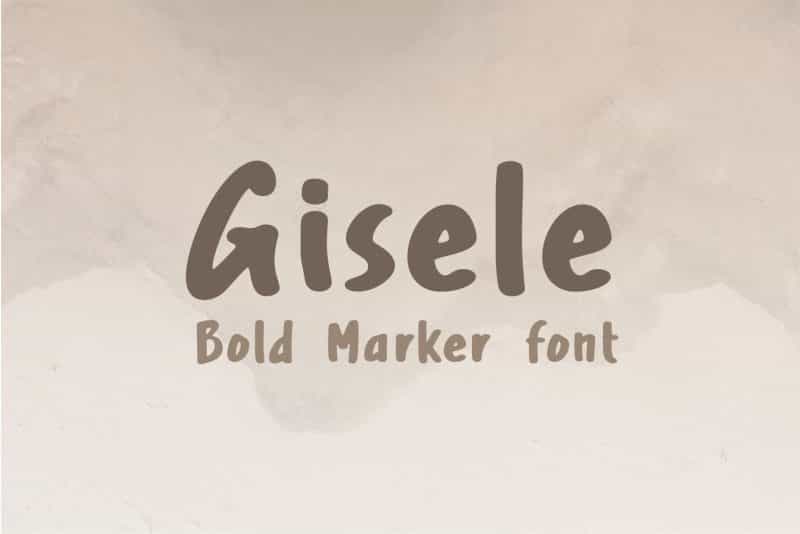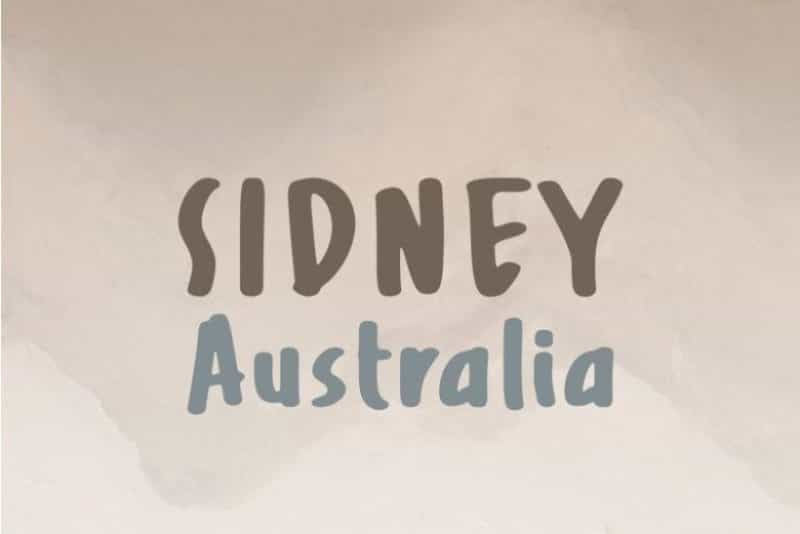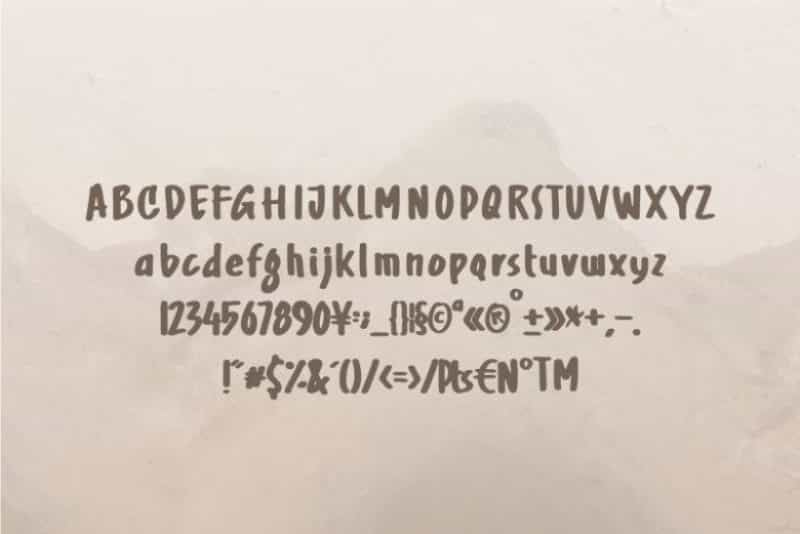
Discover Gisele Script Font, part of the Commercial Brush Handwritten collection—a versatile and unique font perfect for adding a personal touch to your projects. Download it for free and enjoy crafting designs with style, from invitations to social media posts. This font is available exclusively for personal use, giving you the freedom to create without limits. Unlock your creativity with Gisele Script Font today!
Gisele is a handwritten font which is quite unique and daring to use. It will enhance your designs and add that extra flair.